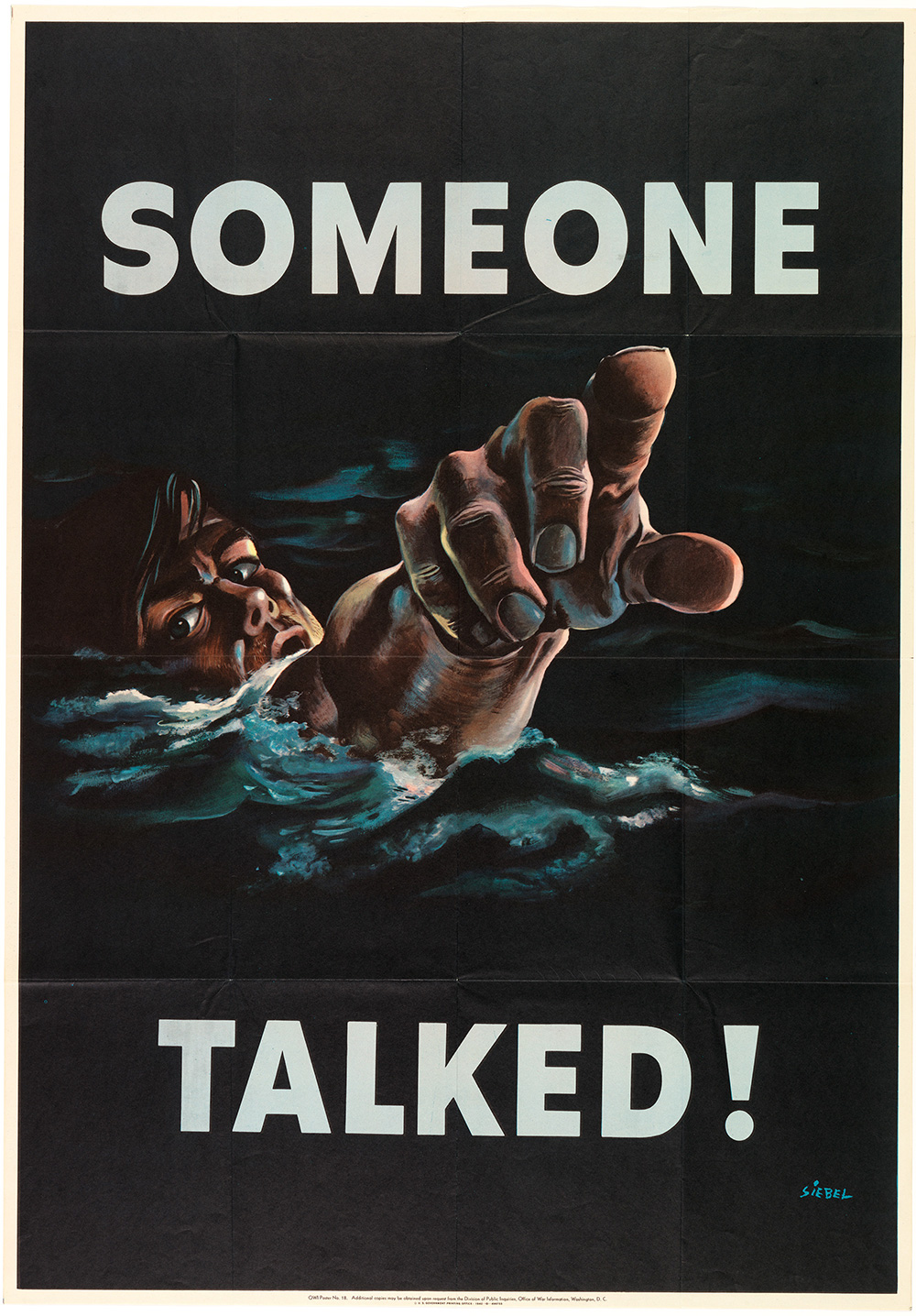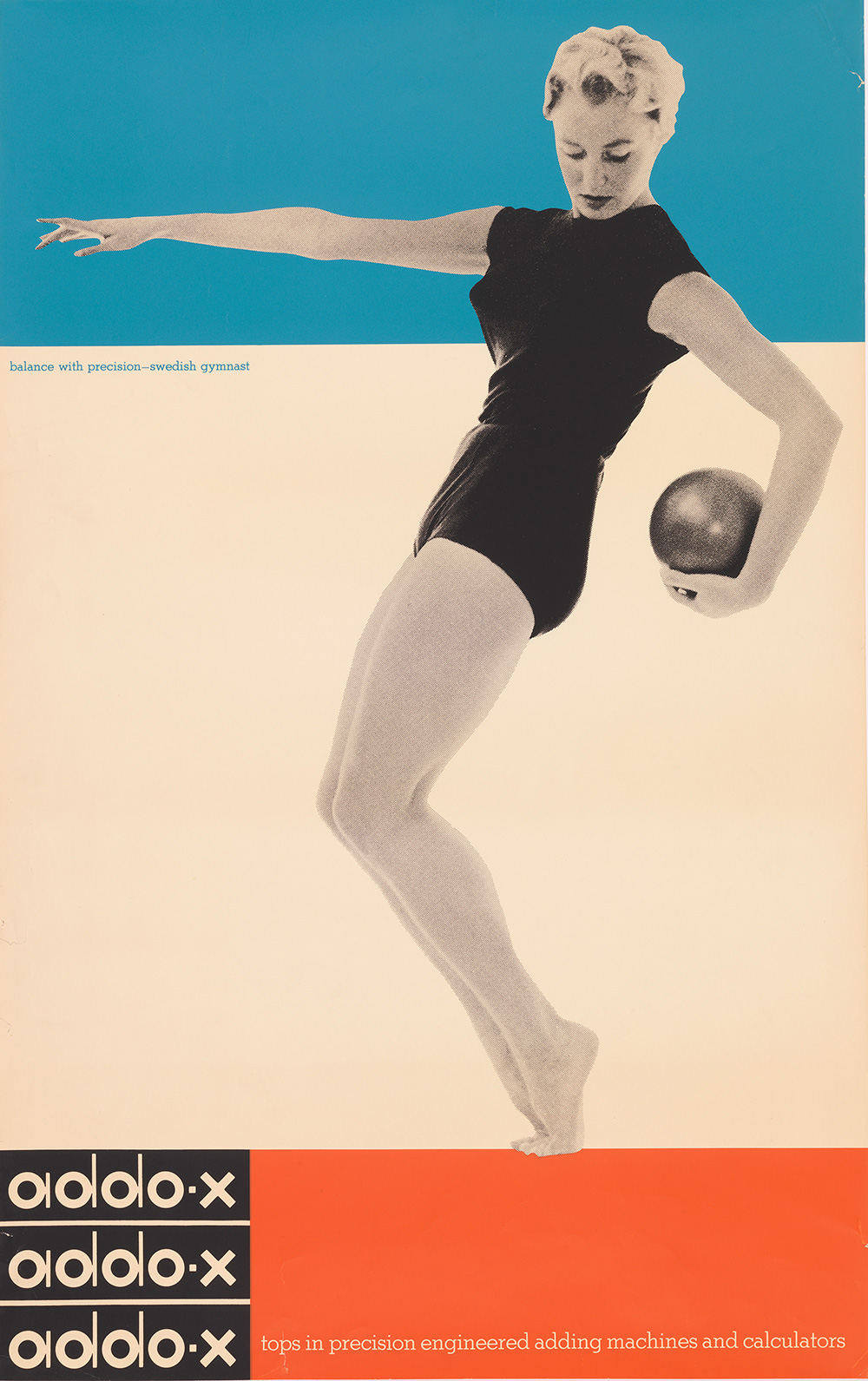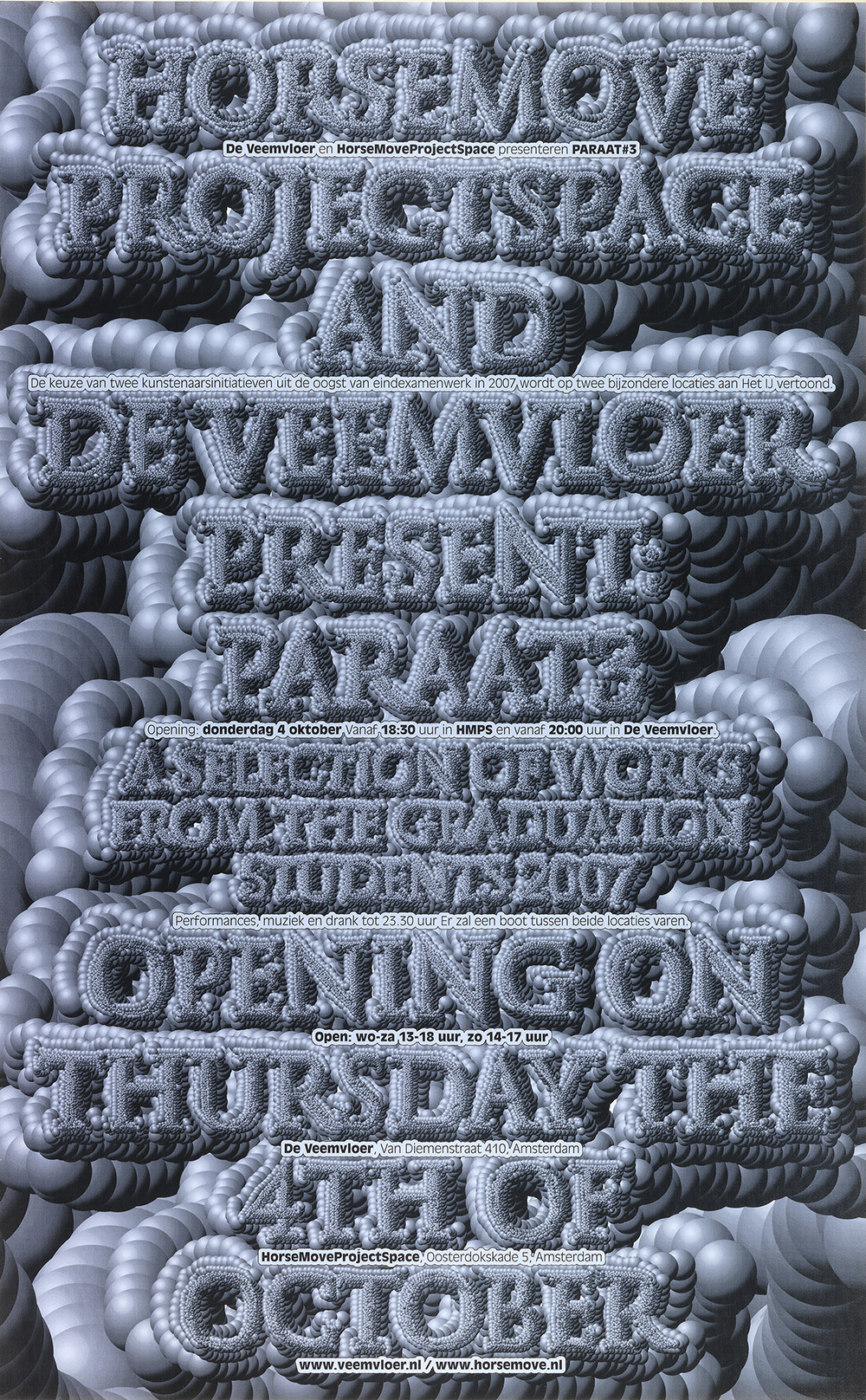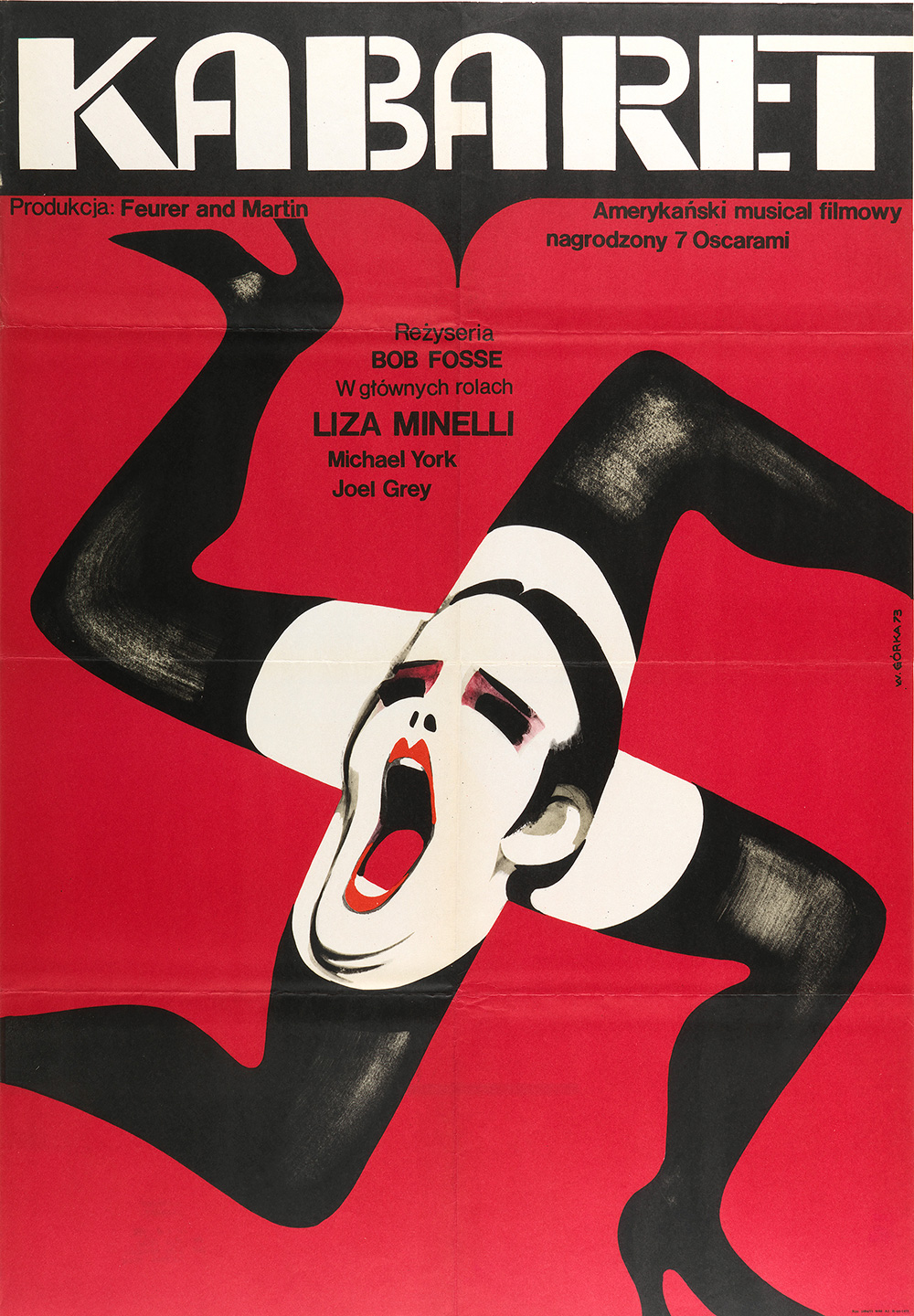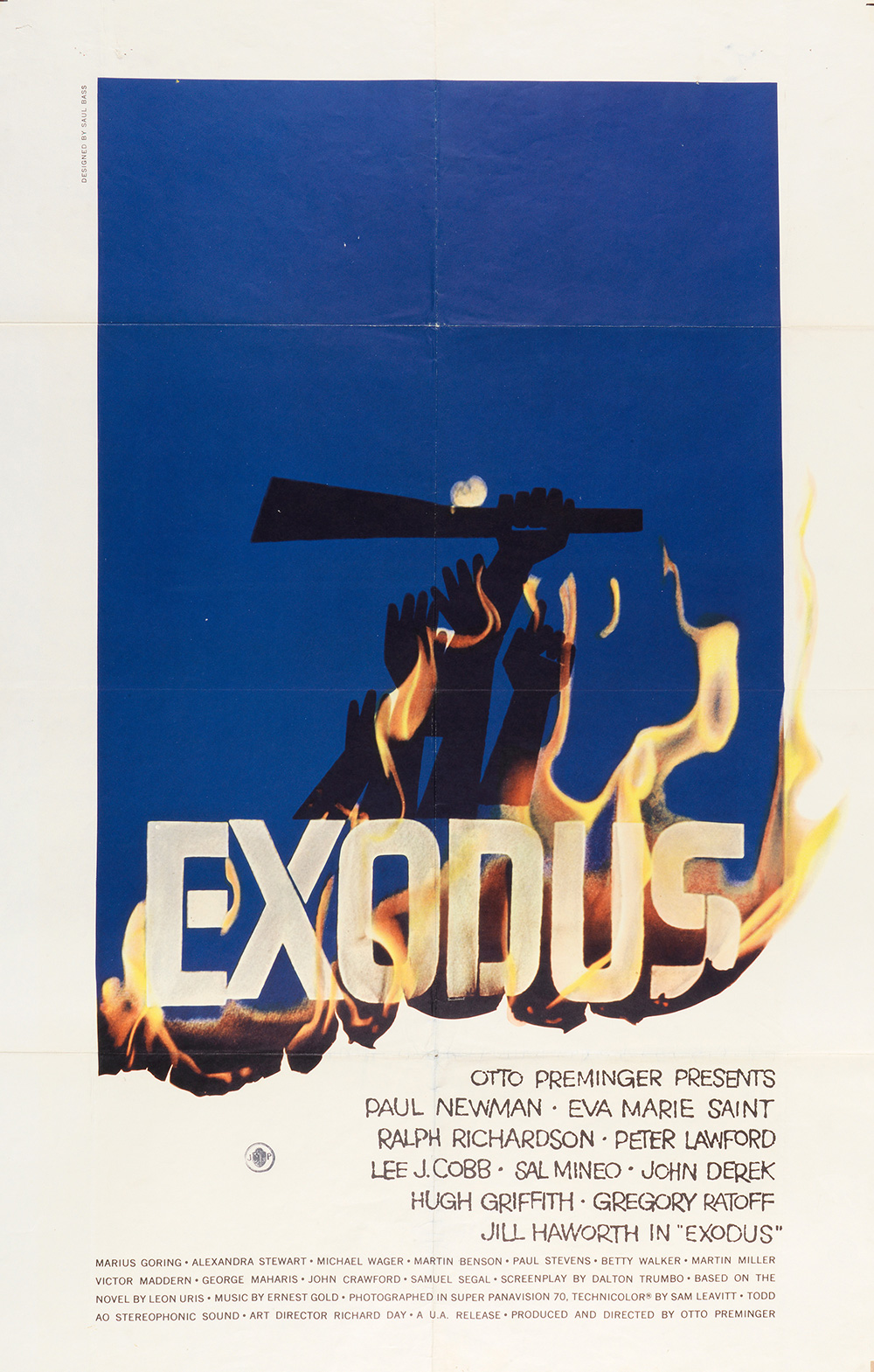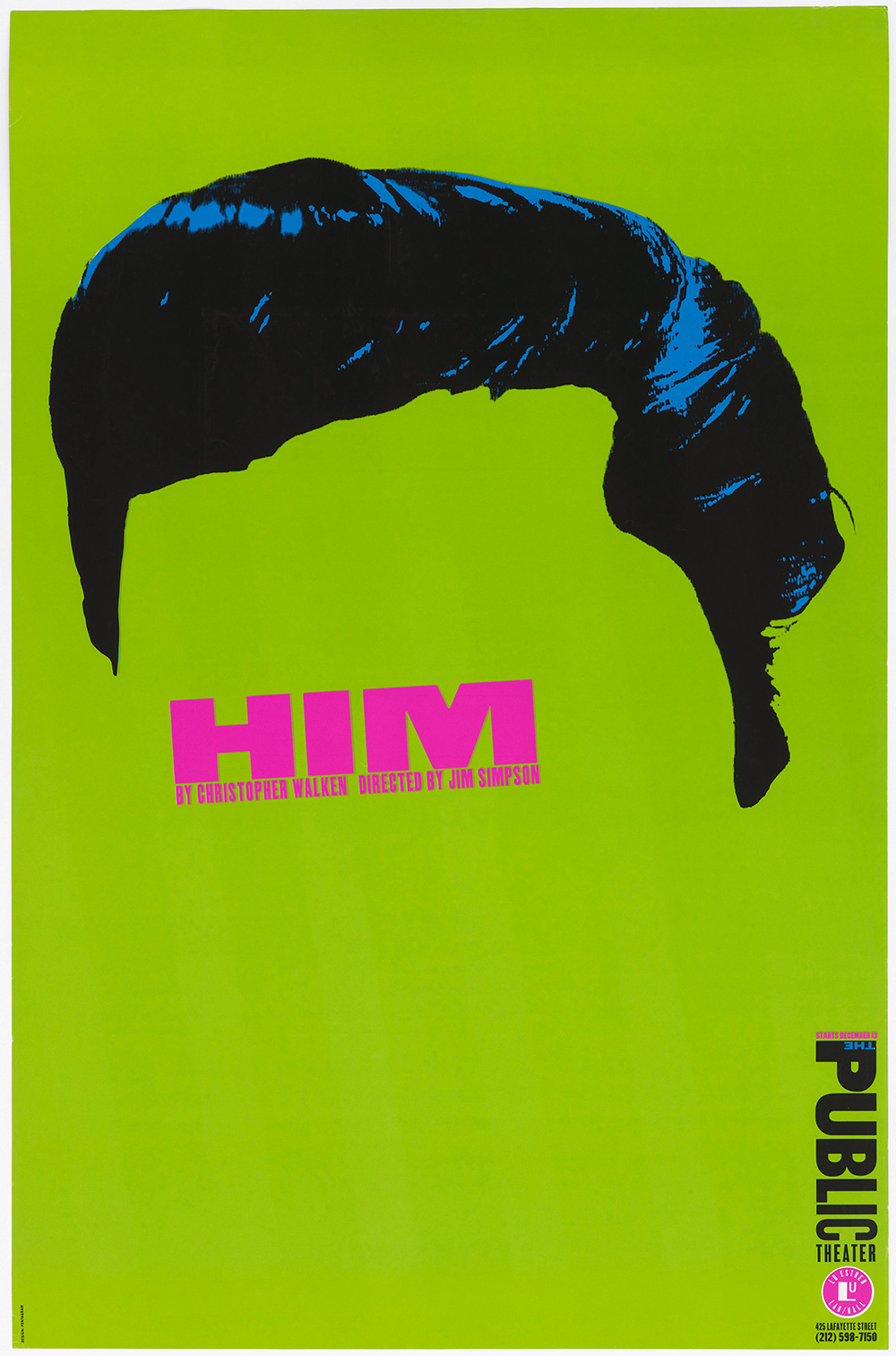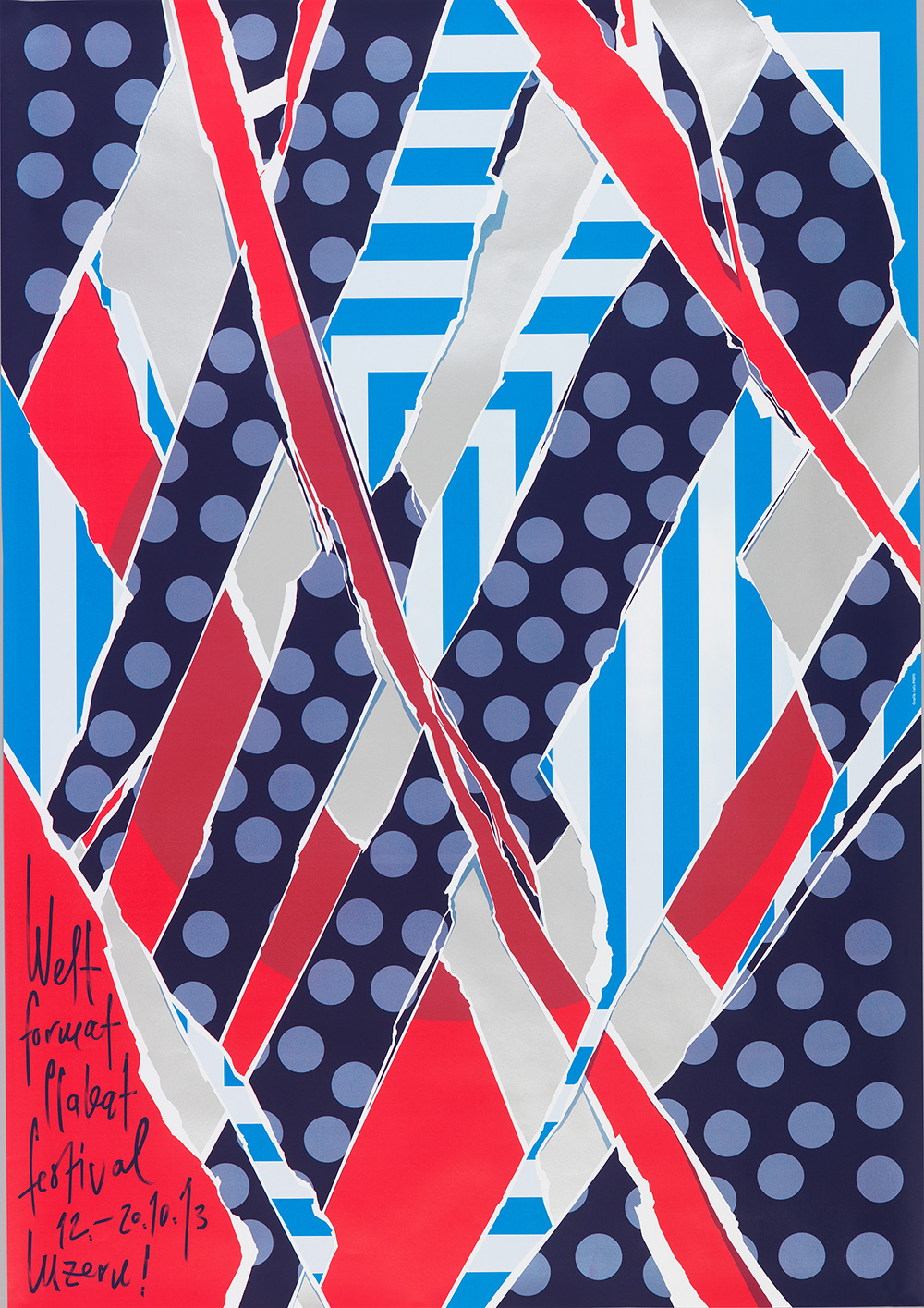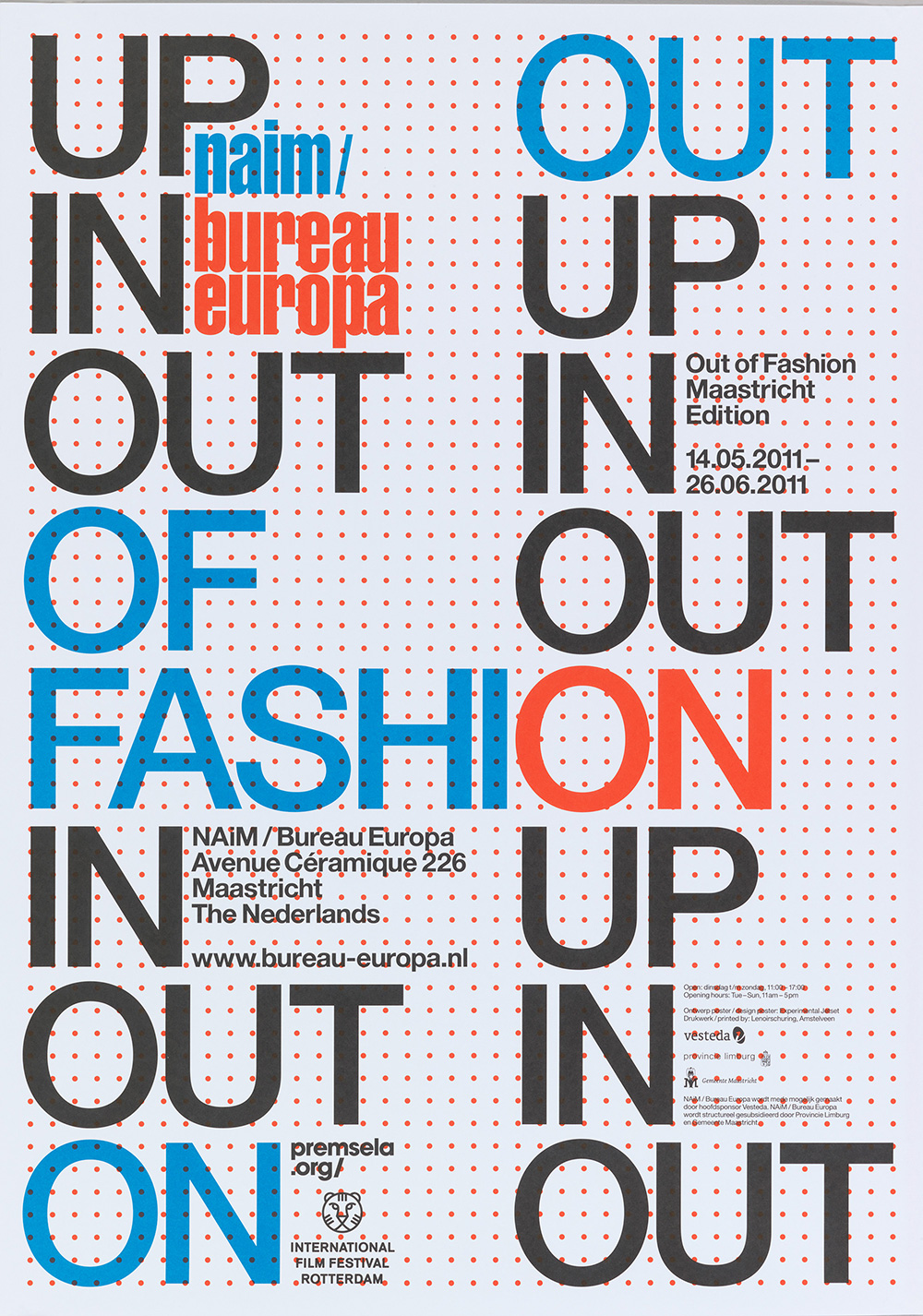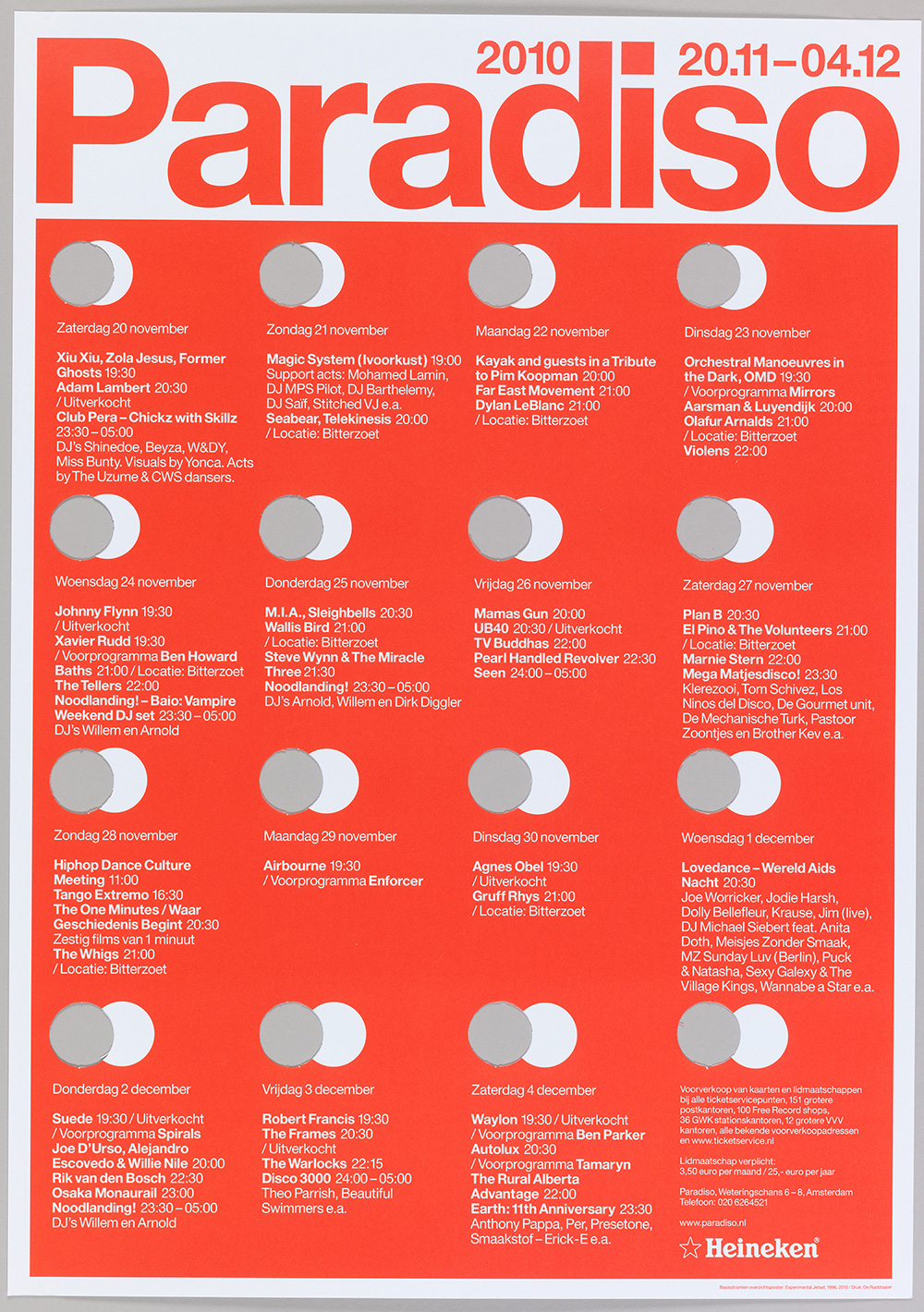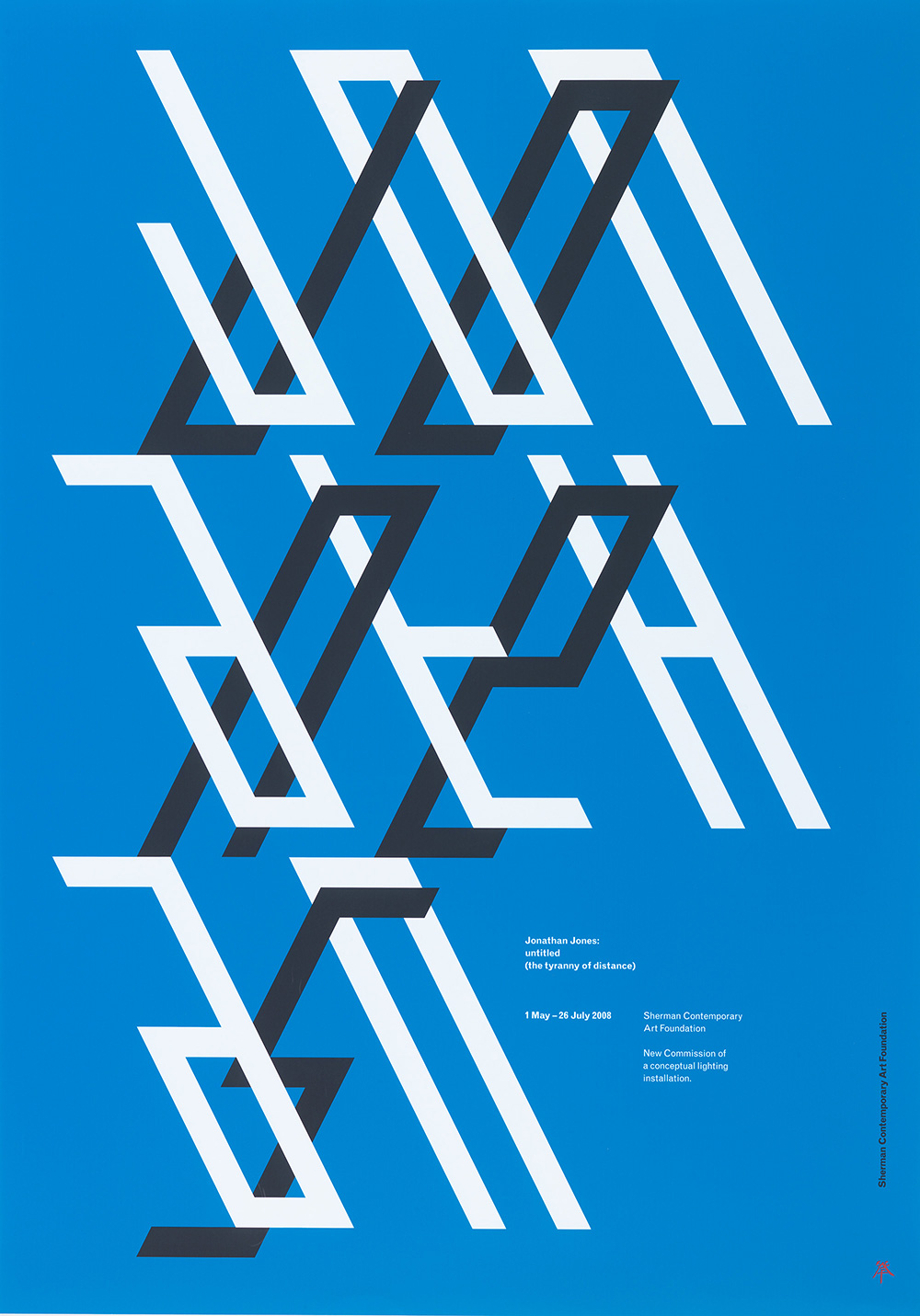
It’s time to learn a thing or two about the science of the poster
When most museums put on poster exhibits, they tend to walk viewers through the histories of different artistic styles, ranging from Art Nouveau to Bauhaus. So when the Smithsonian’s newly renovated and re-energized Cooper Hewitt Design Museum in New York took stock of its hefty collection of 4,000 rarely seen posters, it wanted to create a display that would explore the works as more than just ink on paper” writes The Atlantic’s Steven Heller on the exhibition that will have any poster obsessed individual beg for more. Featuring more than 125 works from Cooper Hewitt, Smithsonian Design Museum’s permanent collection, the exhibition “How Posters Work” shows how dozens of different designers—from prominent pioneers like Herbert Matter, Paul Rand, Philippe Apeloig and M/M (Paris), to lesser-known makers—have mobilized principles of composition, perception and storytelling to convey ideas and construct experiences.
“A true visual feast, ‘How Posters Work’ features 14 principles of how designers look at the world” said Caroline Baumann, director of the museum. “This exhibition reveals the design techniques behind some of the most iconic and beloved posters in the museum’s collection, from the hard-edged designs of Ladislav Sutnar to the ever popular psychedelic posters of the 1960s, which epitomize sensory overload” she added. From selling a product or promoting an event to arguing a point at a moment in history the history of poster is rich and versatile. Curated by senior curator of contemporary design Ellen Lupton, the show is organized into 14 subsections, concepts “that aren’t exactly universal, but they encapsulate a broad range of methods for approaching a design problem”, including “overwhelm the eye”, “overlap” and “use text as image”. The latter, for example, is about how typography is often used in poster design, to enhance or obscure a message through the size, style and arrangement of letters.
“Nearly every poster in our exhibition uses typography” Lupton told us in an email. “Sometimes type is used to telescope a message to achieve maximum emotional impact, as in the poster “Someone Talked”, published by the US Office of War Information during World War II. This poster uses powerful language and minimal type to bring home the message that a sailor is about to drown because the enemy overheard idle chatter about troop movements. On the opposite end of the spectrum are posters by Ralph Schraivogel and Michiel Schuurman, which use type to embroil the eye in a complex and disorienting experience”.
“Nearly every poster in our exhibition uses typography. Sometimes type is used to telescope a message to achieve maximum emotional impact. On the opposite end of the spectrum are posters which use type to embroil the eye in a complex and disorienting experience”.
The exhibition, which is on view at Cooper Hewitt from May 8 through Jan. 24, 2016, is accompanied by a 224-page catalog, published by Cooper Hewitt, which serves as a rich primer in visual thinking and demonstrates how some of the world’s most creative designers have mobilized design principles to produce powerful acts of visual communication. At last posters have the high-design moment they do deserve.